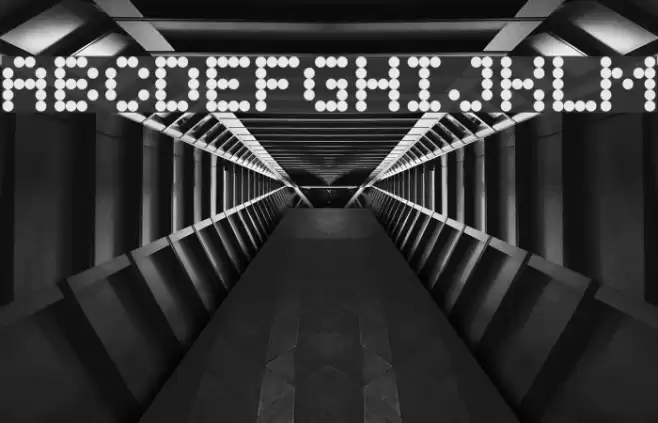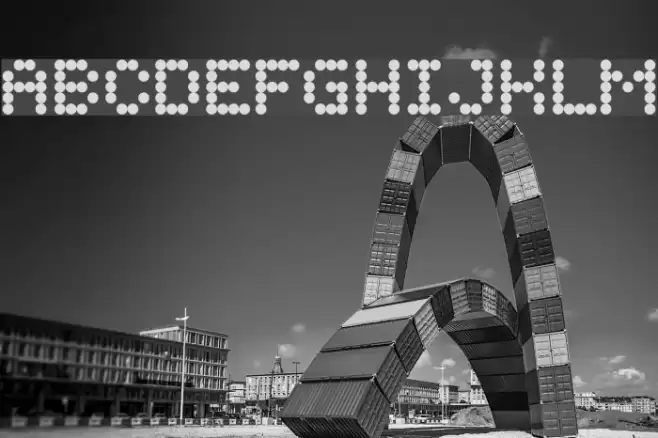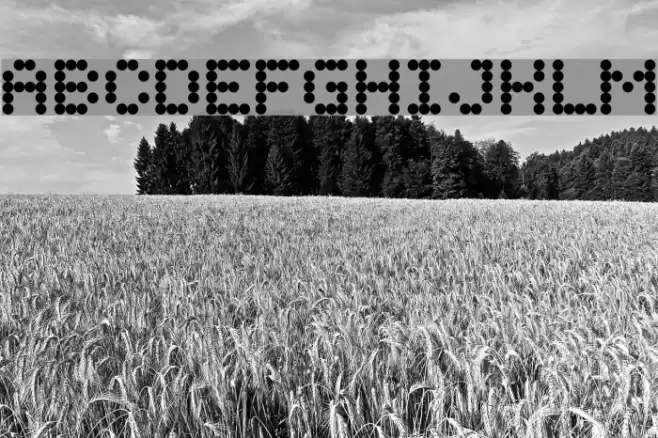
Quarky Font
Quarky Description
This font features a unique dotted design, where each character is composed of a series of evenly spaced dots. The style is playful and modern, offering a distinctive look that stands out in any design. The uppercase and lowercase letters maintain a consistent size and spacing, creating a uniform appearance. Numbers and special characters follow the same dotted pattern, ensuring a cohesive look across all elements. The font's geometric structure and consistent dot size make it ideal for creative projects that require a bold and eye-catching typeface.
A modern, dotted font with a playful and distinctive style from Dotted fonts.
- Proposed Projects: Ideal for creative projects such as posters, logos, and digital graphics that require a bold and unique typeface.
- Use Case: Logos, Headlines, Posters